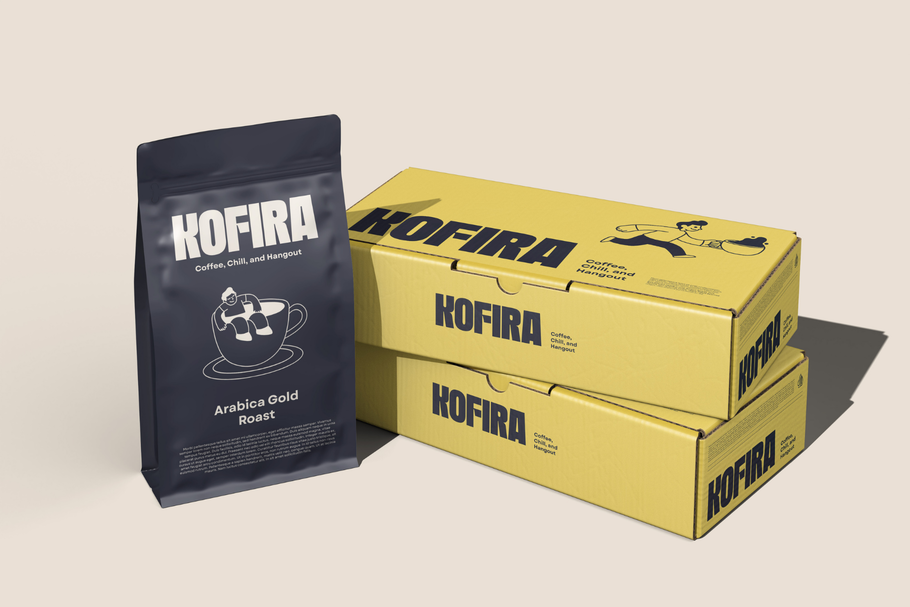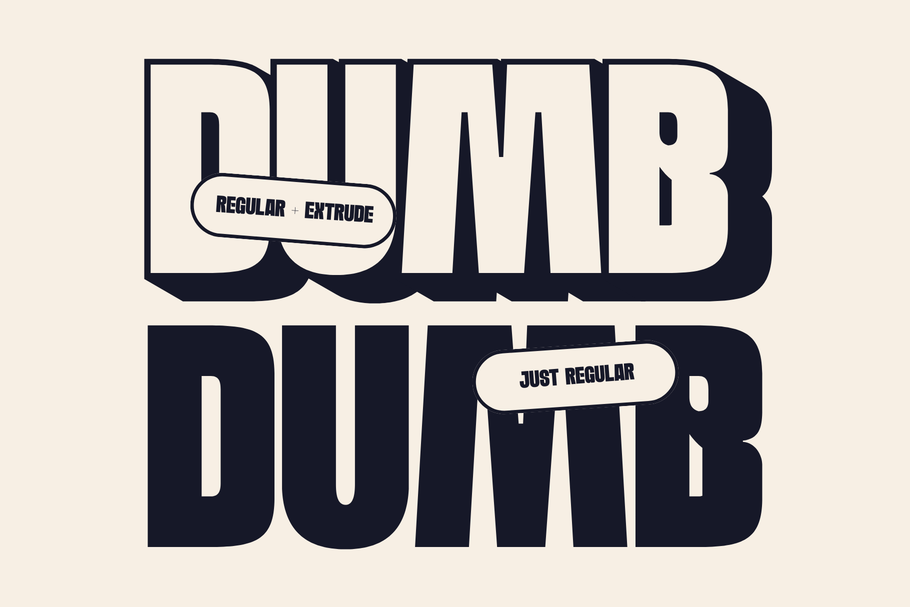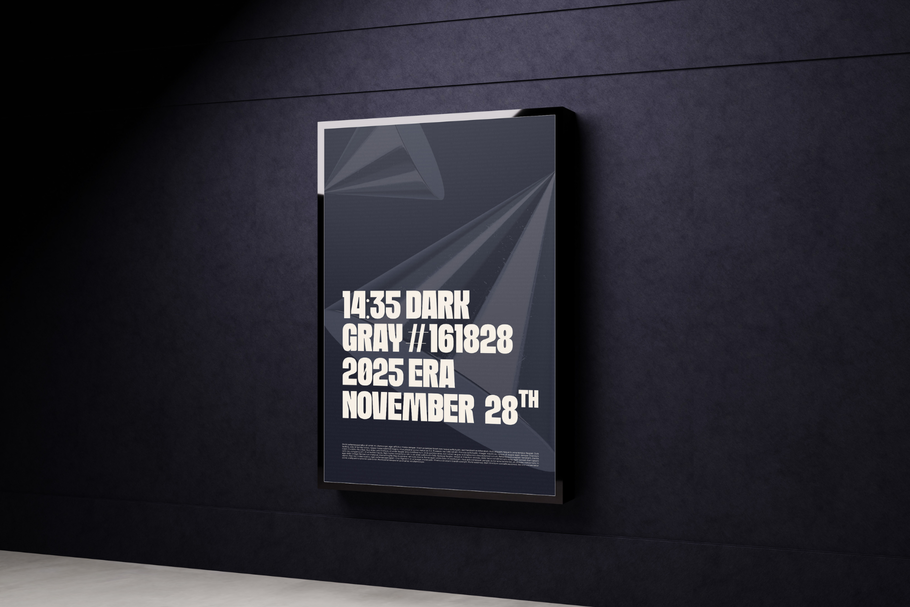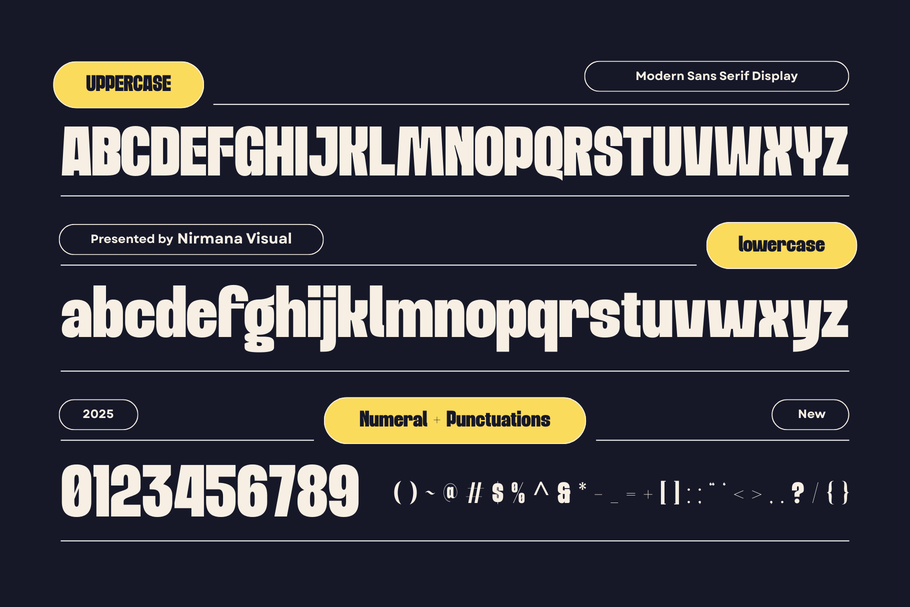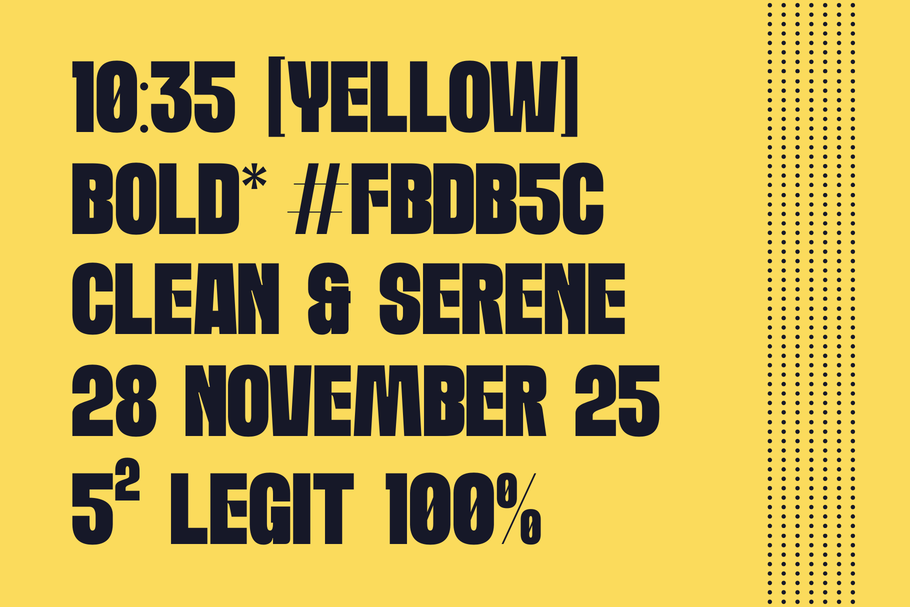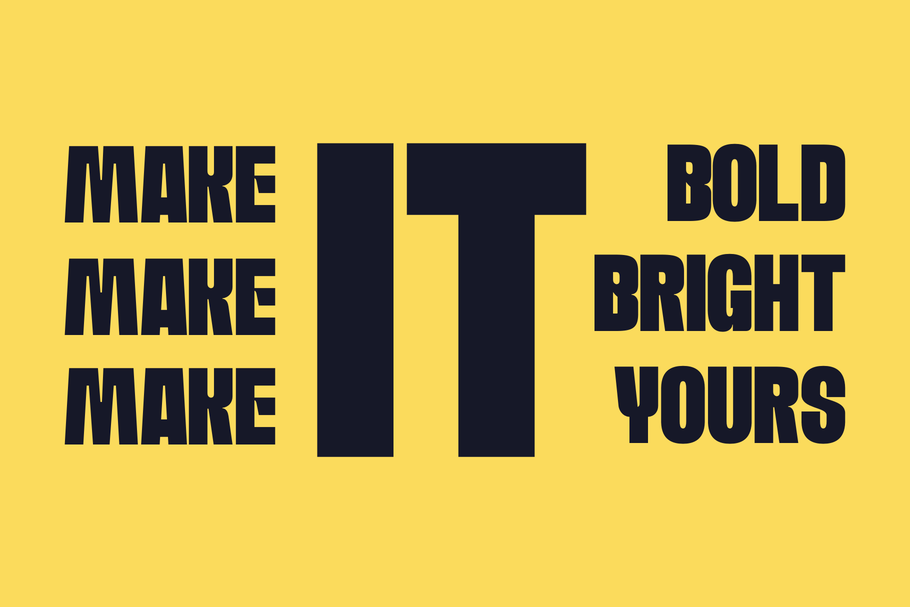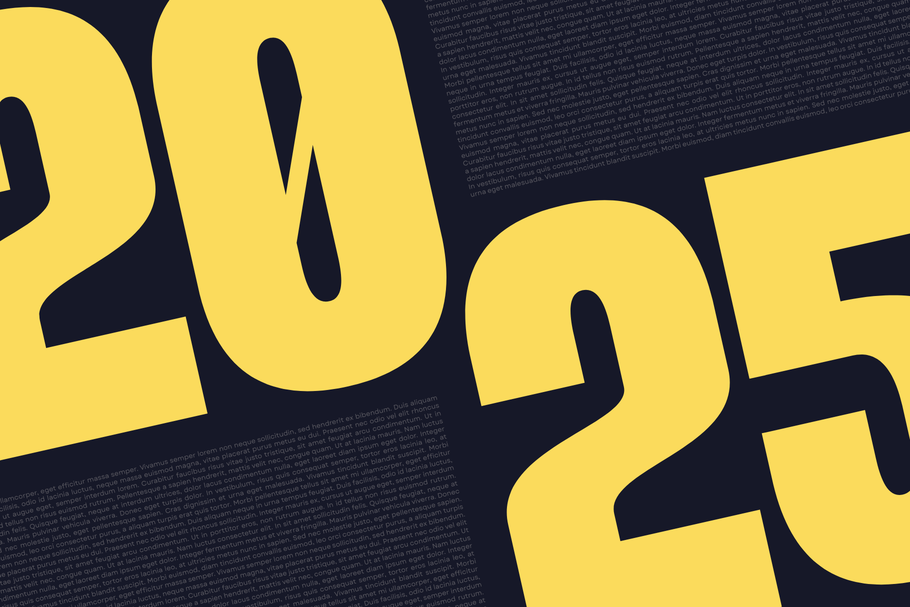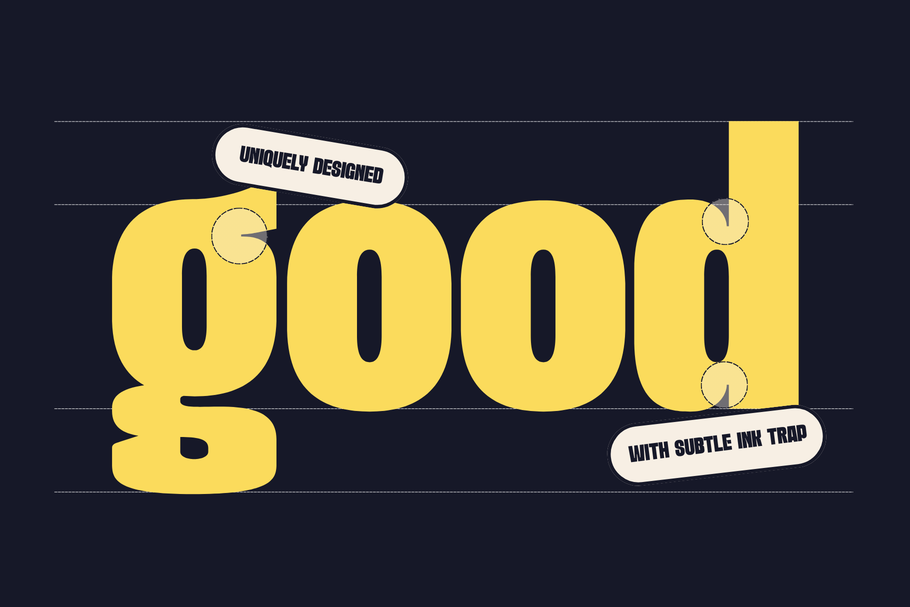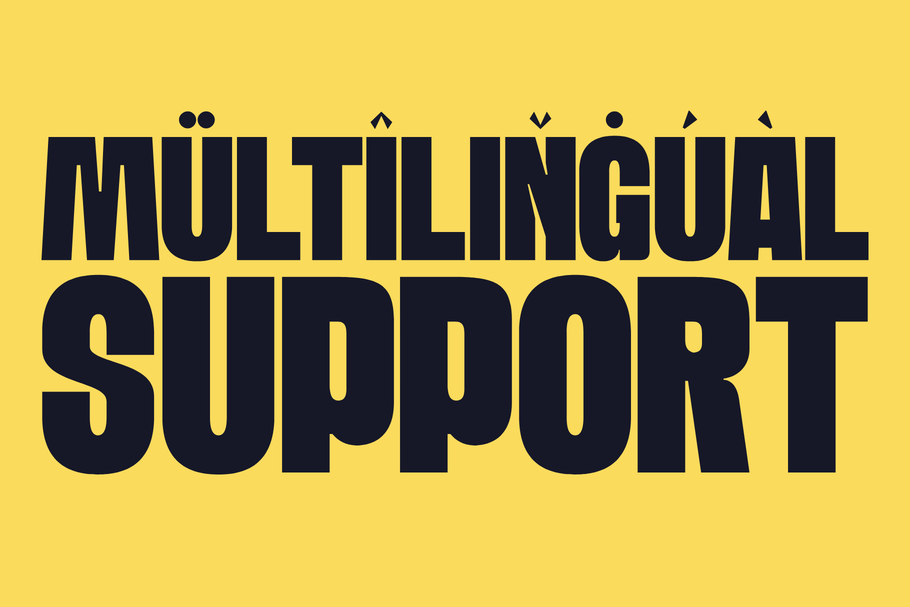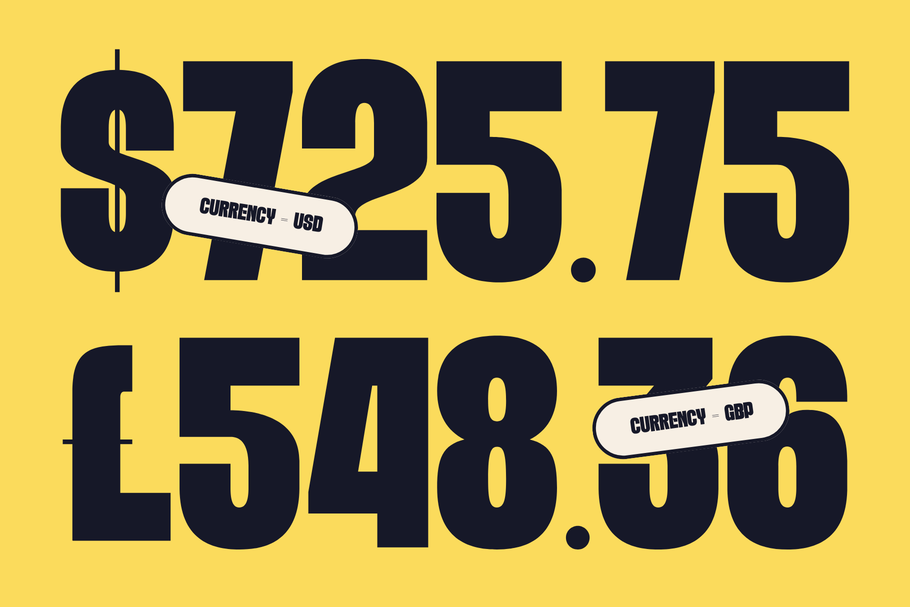
Goola Modern – Bold Extrude Logo Font
Goola Modern offers beautiful typographic harmony for a diversity of design projects, including logos & branding, social media posts, advertisements & product designs.
• Modern Logo Font
• Modern Design
• Perfect for Branding & Logos
• Multilingual Support
• Regular + Extrude